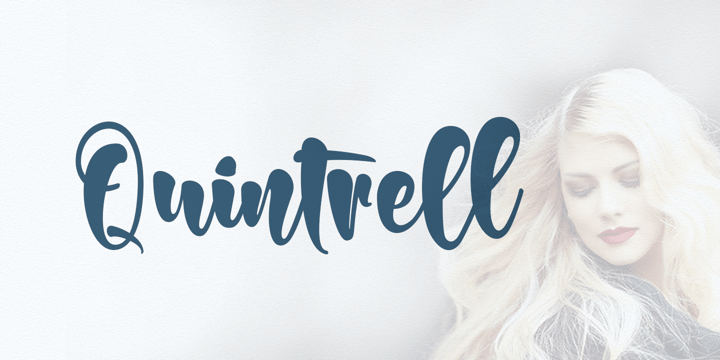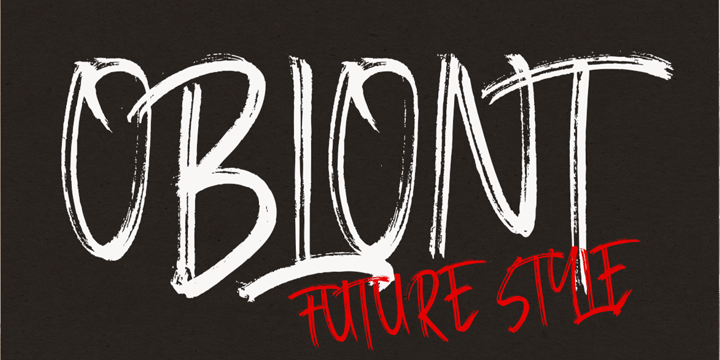
The Ultimate Script Bundle 7 Elegant Handwritten Fonts
The Ultimate Script Bundle – 7 Elegant Handwritten Fonts
Discover a timeless collection of handcrafted typography with The Ultimate Script Bundle, featuring 7 elegant handwritten fonts designed to bring charm, personality, and sophistication to every project. Each font is carefully crafted with smooth flowing strokes and natural letterforms, making it perfect for both modern and classic designs.
Whether you're designing a luxury brand, creating wedding invitations, building a memorable logo, or crafting eye-catching social media content, this bundle provides the flexibility and quality you need. Every typeface offers its own unique style while maintaining excellent readability and professional aesthetics.